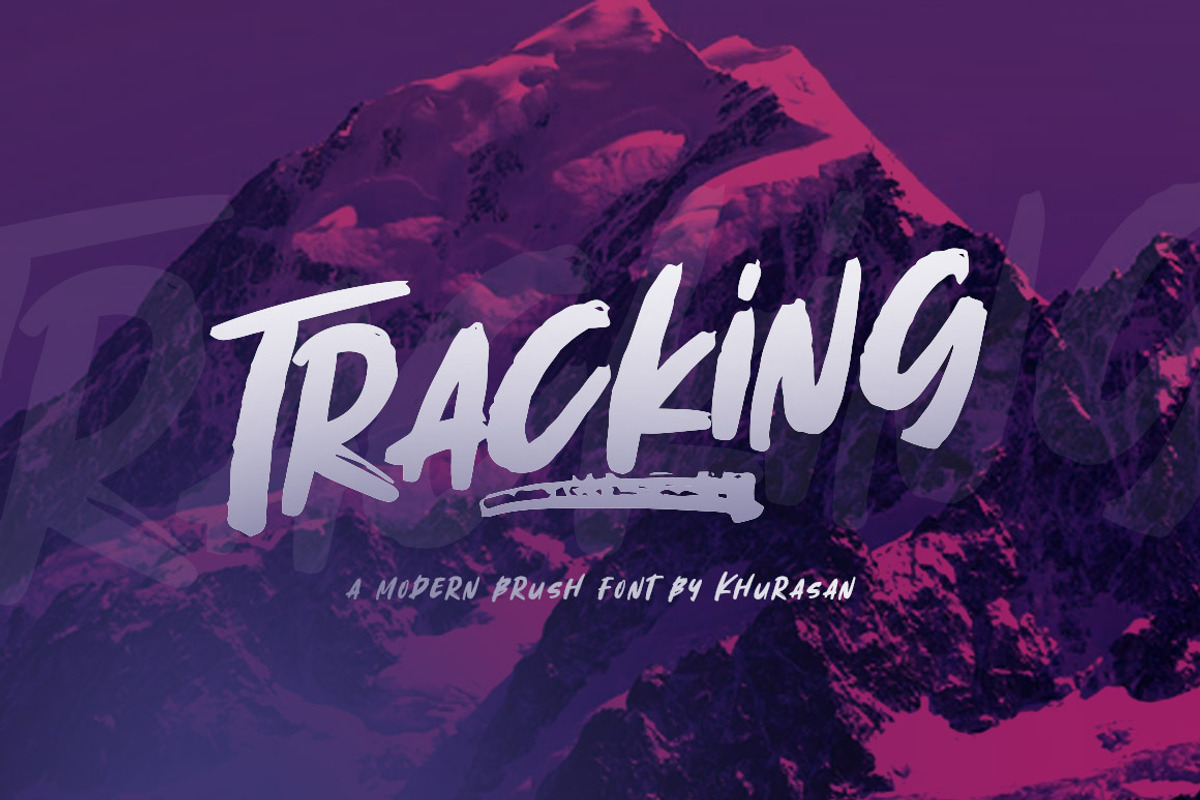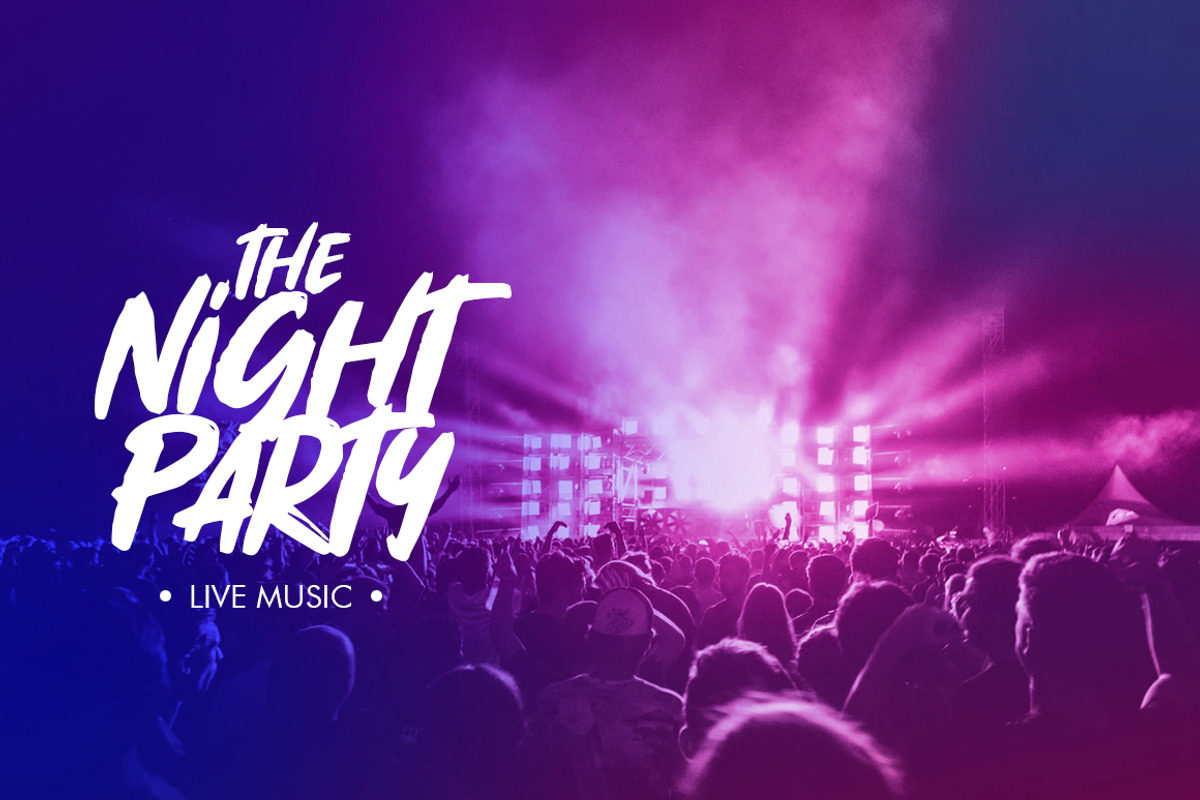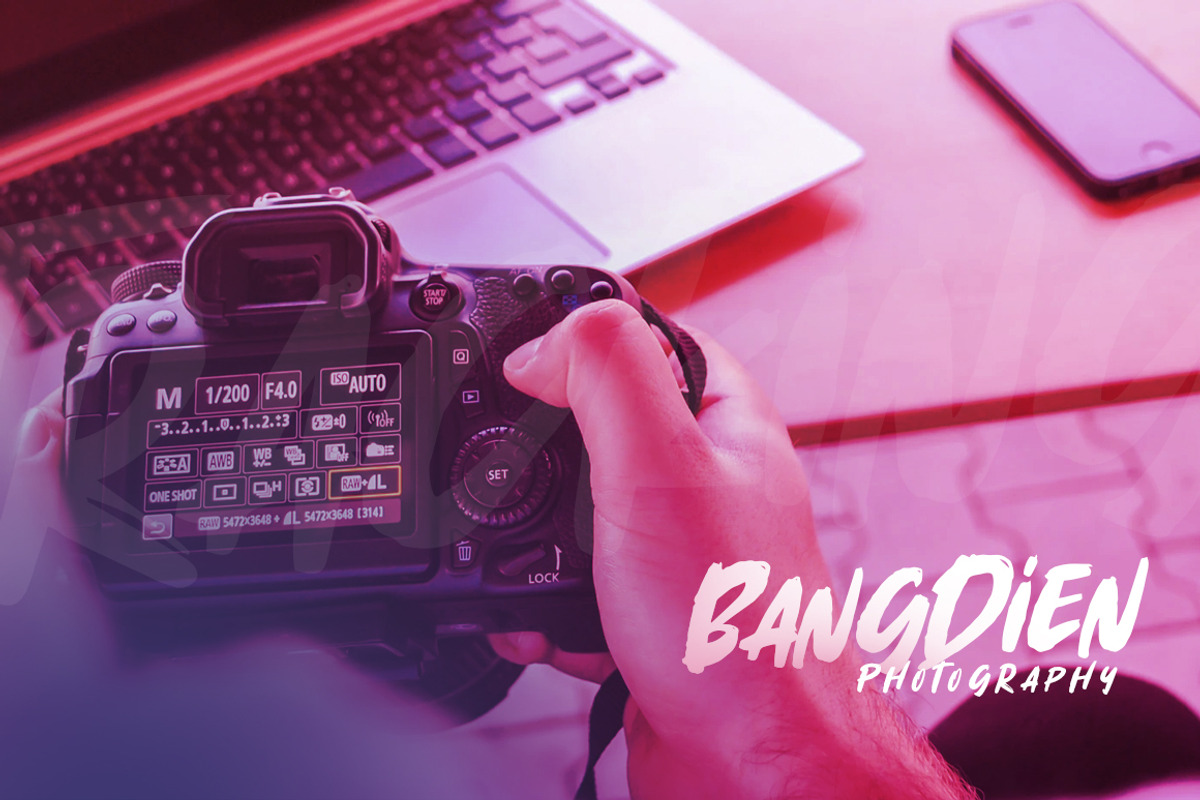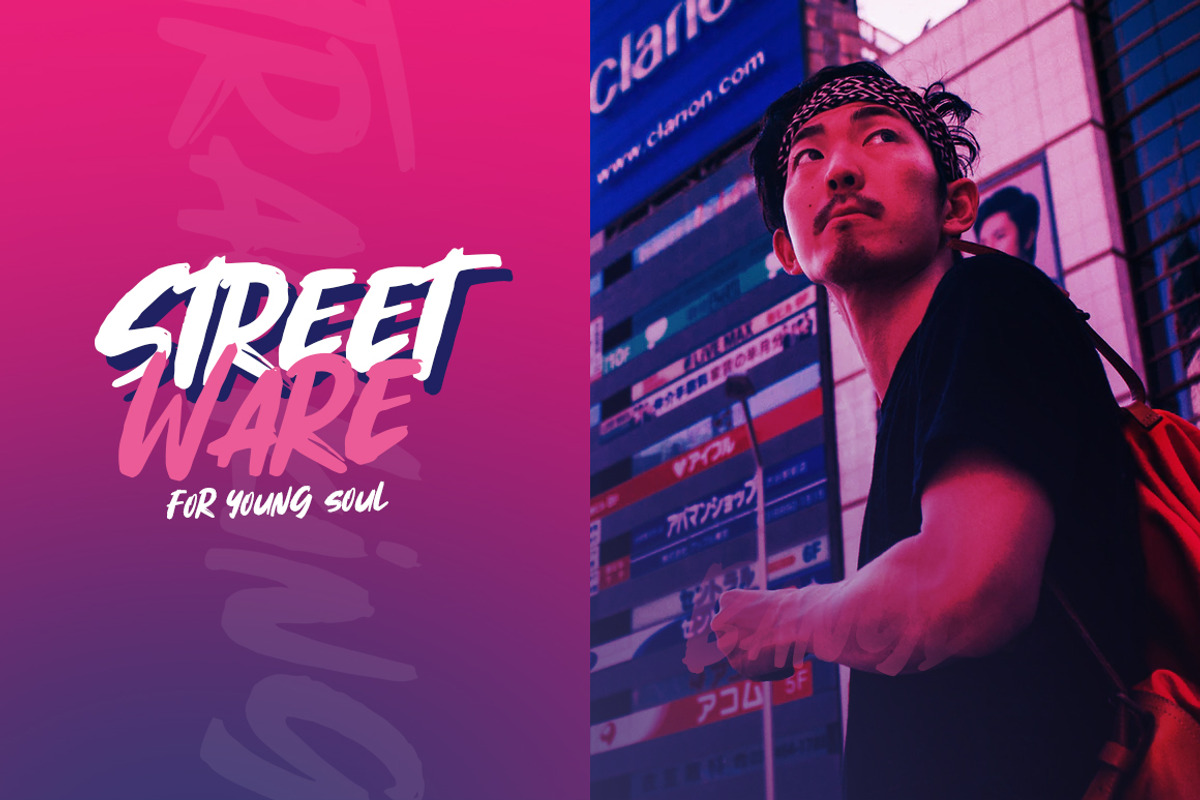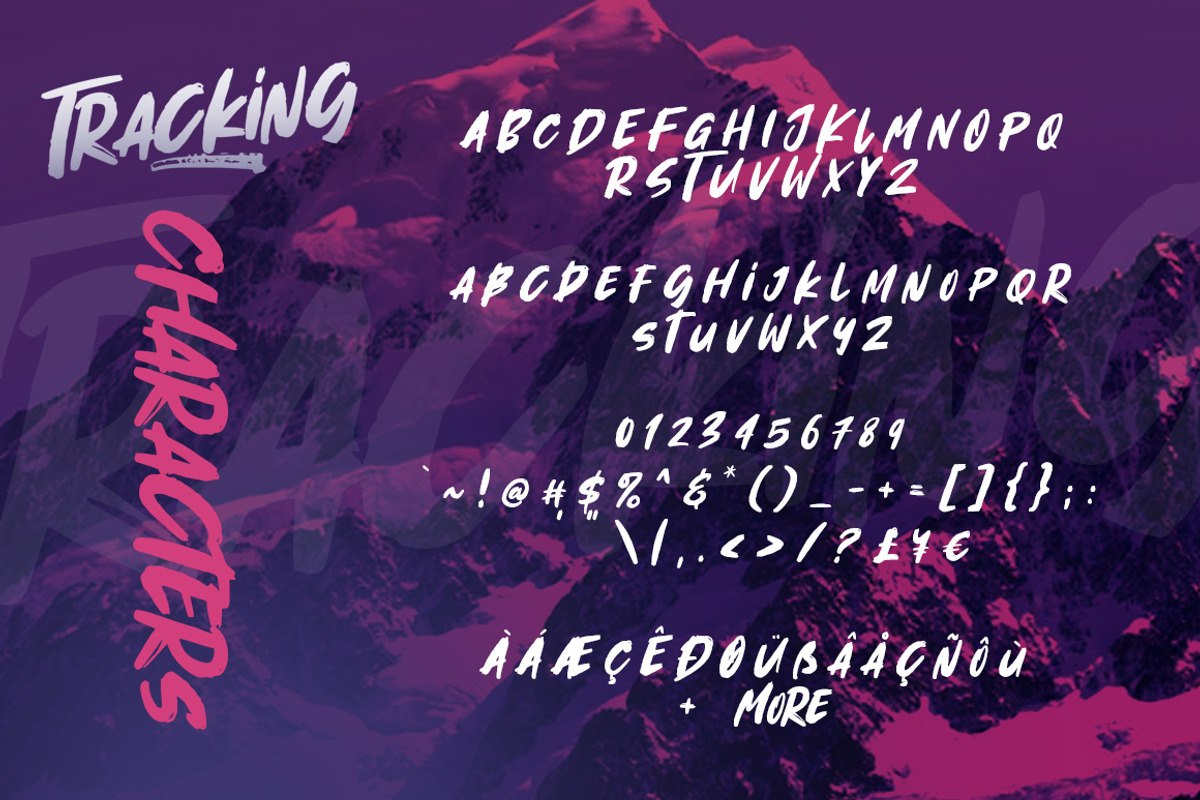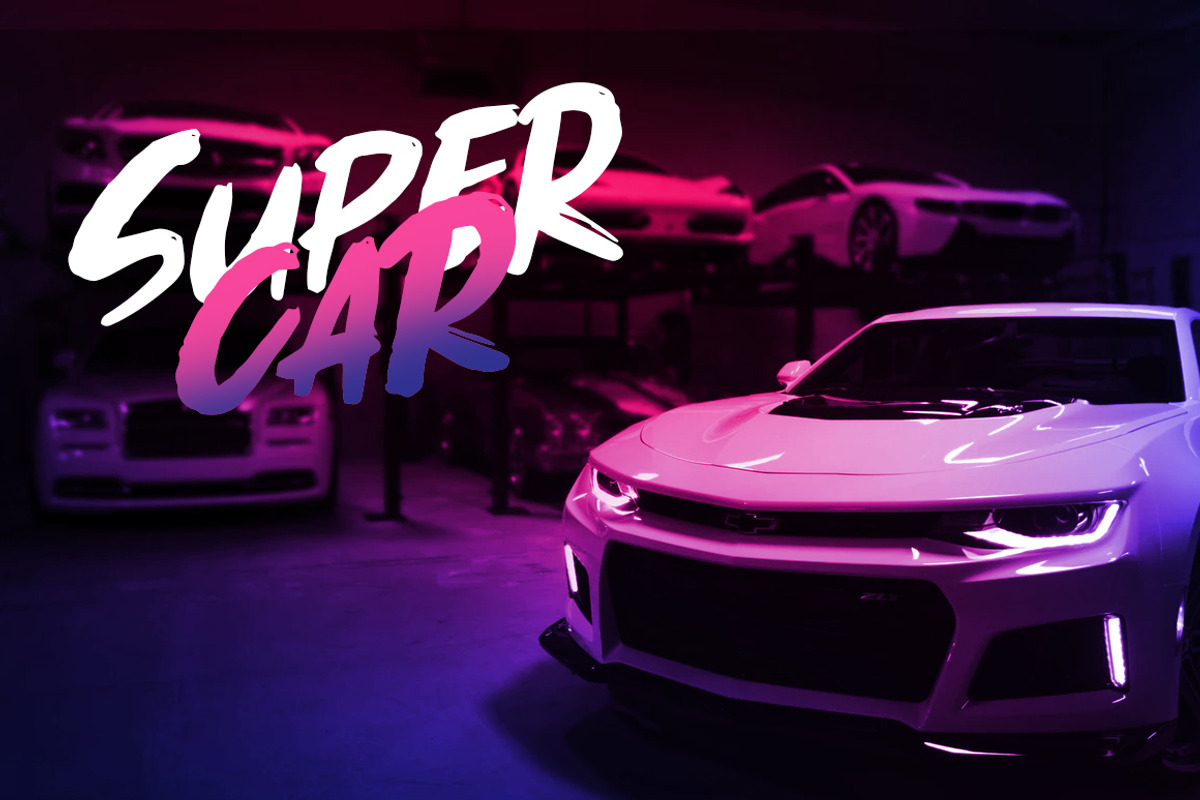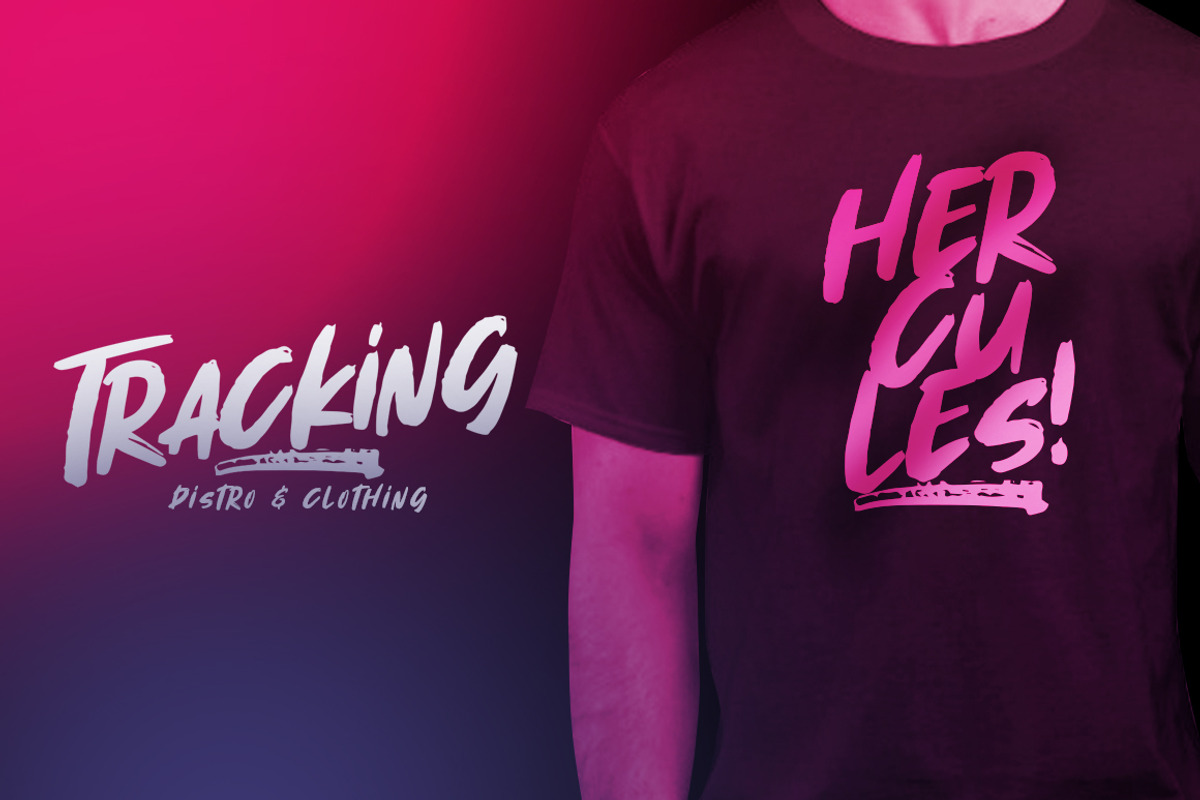
Tracking Brush Font
Introducing Tracking is a fresh handwritten font brush, elegant and vintage feel character set. Tracking font includes a full set capital and lowercase letters, as well as multi-lingual support, currency figures, numerals, & punctuation.
- Tracking font includes a full set capital and lowercase letters, as well as multi-lingual support, currency figures, numerals, & punctuation